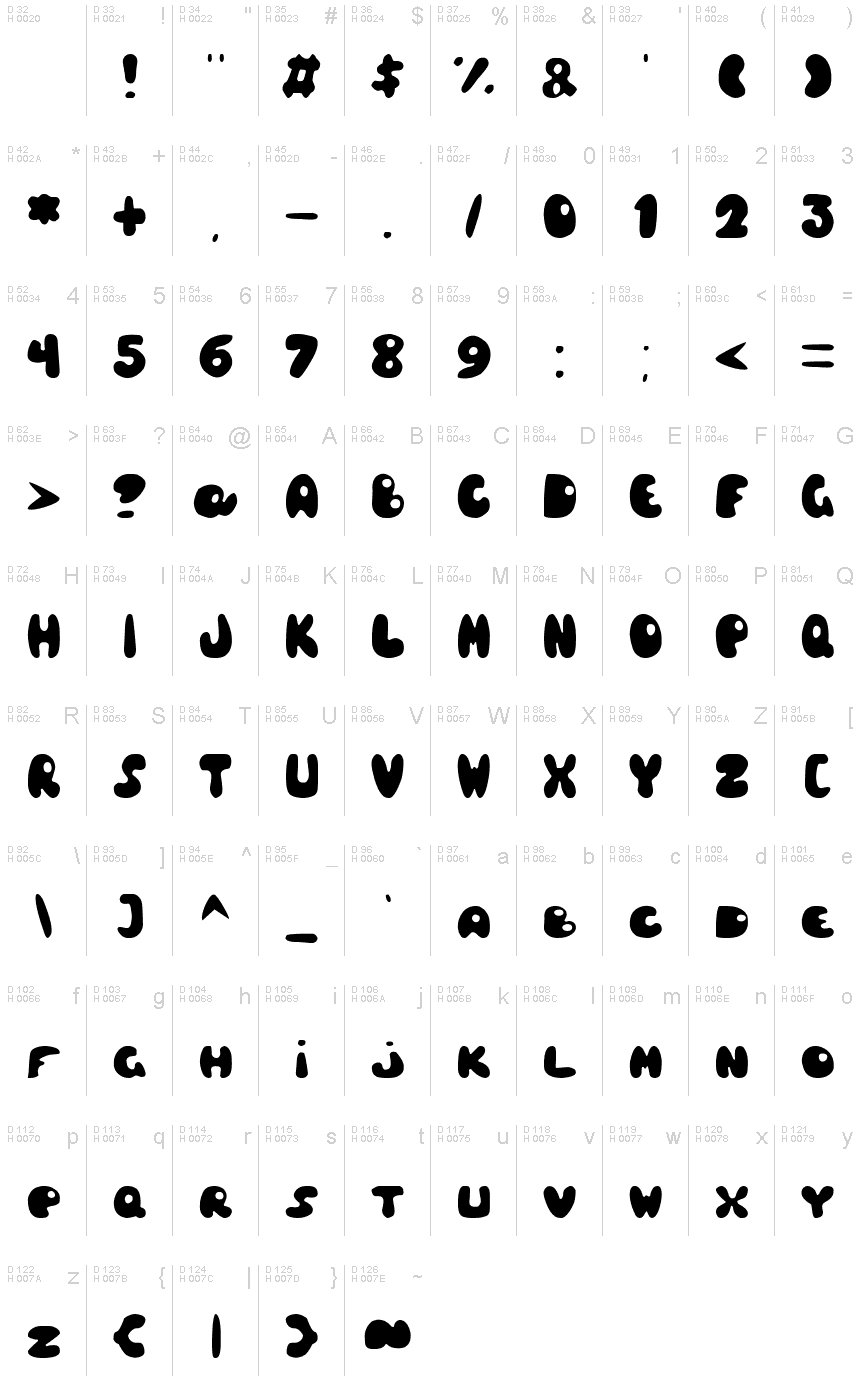
Balloony Regular
Balloony Regular, a whimsical and playful display font by Roman C, is here to add a touch of fun to your projects. With its extra-bold weight and cartoon style, this font is perfect for children's book covers, party invitations, and animated movie posters. Let your creativity soar as Balloony Regular brings characters to life with its bubbly shapes and cheerful curves. Whether you're designing a vibrant logo or creating eye-catching headlines, this font will surely captivate audiences of all ages. Get ready to make your designs pop with Balloony Regular!